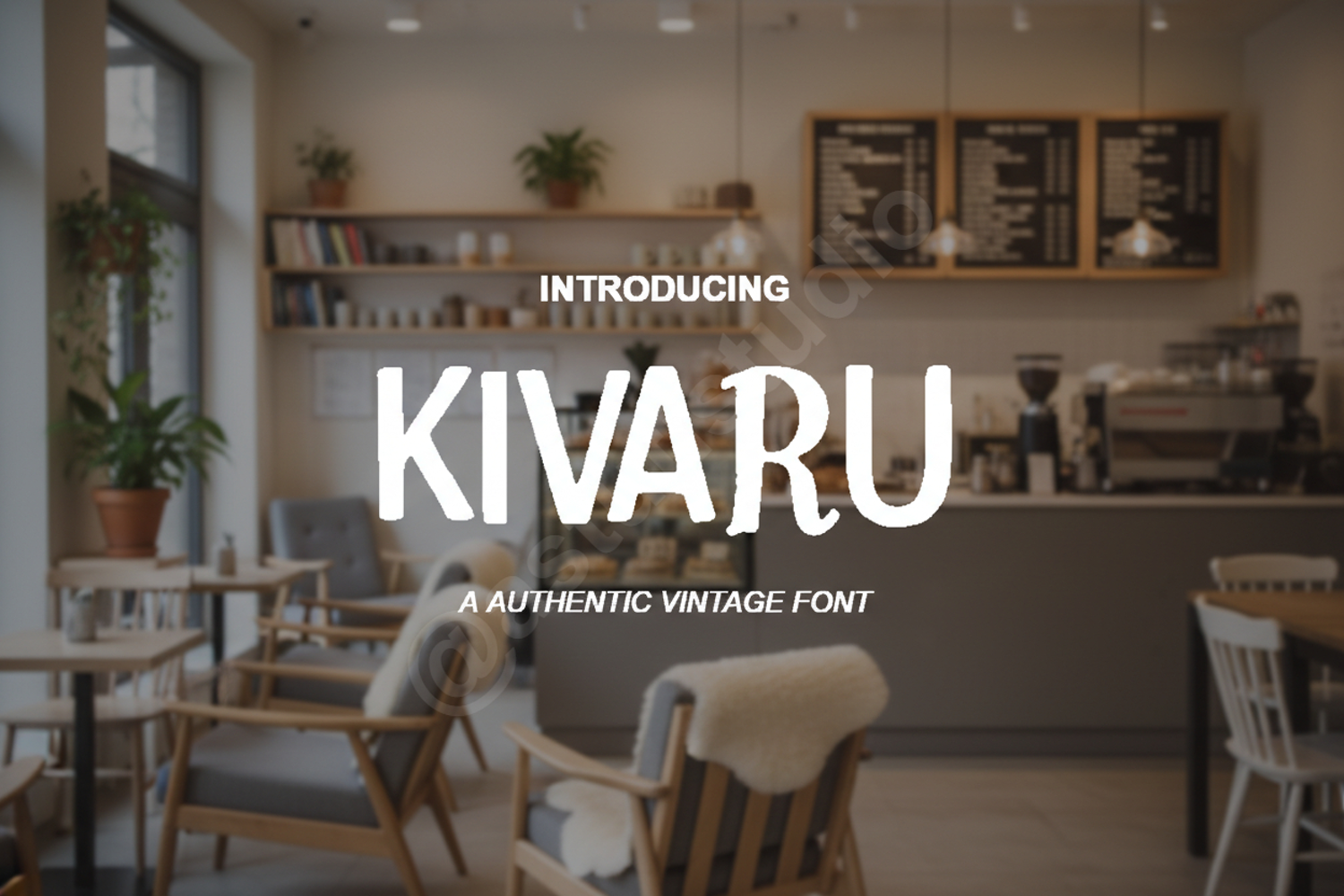
Kivaru - Sophisticated Modern Sans Serif
Kivaru
Kivaru is a premium typeface that embodies the essence of modern minimalism. Crafted with clean lines and balanced geometric proportions, this font is designed to bring a touch of sophistication to any creative project. Whether you are building a brand from scratch or looking for a versatile display font, Kivaru offers the clarity and professional edge needed to stand out in a crowded market.
- Full set of uppercase and lowercase letters
- Comprehensive numbers and punctuation
- Extensive multilingual character support